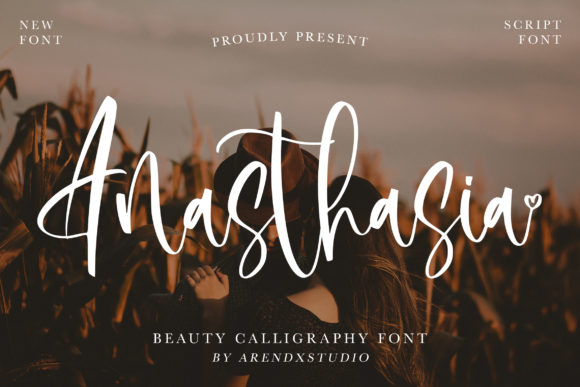
The Designer’s Delight: Anasthasia Font
I’ll never forget the time I was working on a project for a client who wanted a stylish, yet casual look. I had spent hours browsing through font libraries, but nothing seemed quite right. That was until I stumbled upon Anasthasia, a beautiful handwritten font that instantly caught my eye. In this article, I’ll share my experience with Anasthasia, its features, and how to make the most of it in your designs.
An Honest Review of Anasthasia Font
Anasthasia is a stylish, casual, and trendy handwritten font that has become a staple in my design toolkit. Here’s what I love about it:
- ✨ Beautifully crafted letters with a personal touch
- ✅ Easy to read, even in smaller sizes
- 🌈 Versatile and works well for a variety of design projects
While Anasthasia is an excellent font, it’s not perfect. Here are a few quirks to keep in mind:
- 🤔 Some letters may appear a bit too connected, which can make it difficult to use in certain contexts
- ⚠️ Limited availability of stylistic alternates, which may limit its use in more complex designs
The Story Behind Anasthasia
Anasthasia was designed by a team of typographers who wanted to create a font that was both stylish and approachable. The font is named after a beautiful, handwritten script that was popular in the early 20th century. The designers aimed to capture the essence of this script, while making it more versatile and modern.
| Font Name | Anasthasia Font |
| Author | Arendxstudio |
| What is Anasthasia font best used for? | Anasthasia is a versatile font that’s suitable for a variety of design projects, including branding, packaging, and digital media. |
| Does Anasthasia support OpenType features? | Yes, Anasthasia supports OpenType features, including ligatures and stylistic alternates. |